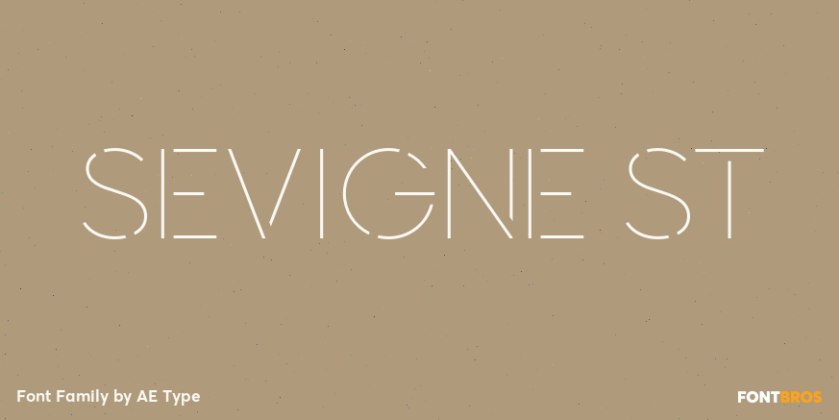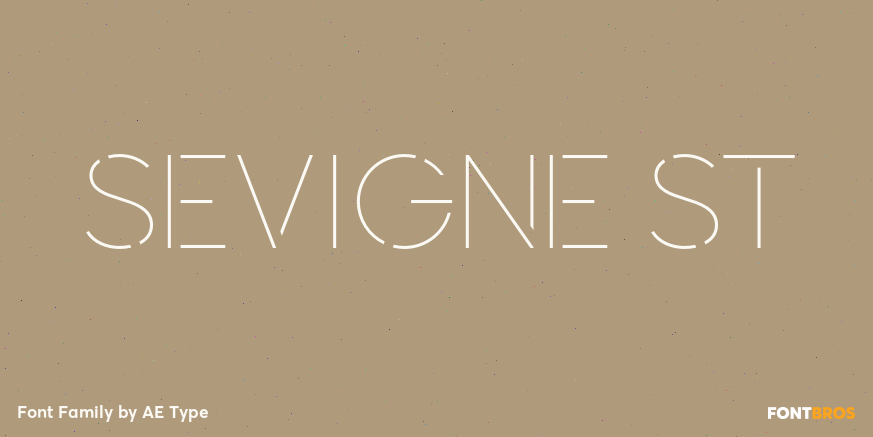
Sevigne ST
About Sevigne ST
Sevigne ST is a highly refined, contemporary geometric stencil, inspired by the ambience of high-end fashion and luxury combined with the raw, utilitarian nature of the stencil. The inclusion of over 130 unique ligatures expand it\’s sensibility of alluring,…